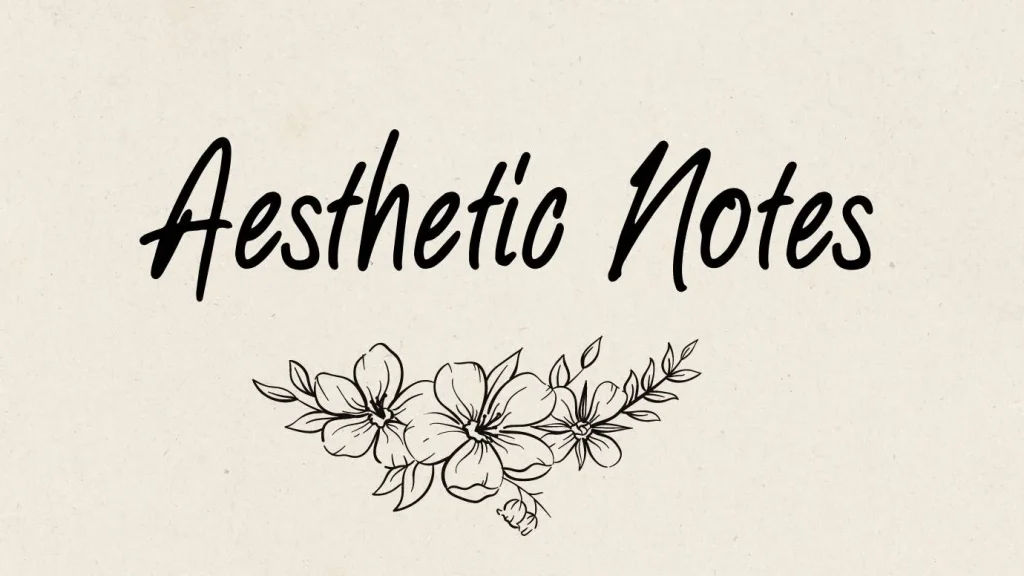
If you are looking for a font with lots of traits, this lettering style will be a flawless choice. To make a design that is both exclusive and
Letterhead Studio created this amazing script design the font is beautifully designed and has an attractive appearance it also displays flexibly formed letters due to their strong curves. Aesthetic Notes Font is popular among designers because of its realistic appearance.
If you are looking for a font with lots of traits, this lettering style will be a flawless choice. To make a design that is both exclusive and attention-grabbing, you can pair this font with any other typeface.
Adobe Photoshop and Canva are two popular designing software packages that allow you to utilize this font for movie logos, drama logos, and logos for websites. This stunning font is often used by graphic designers for generating alternate brush designs.
Glyphs and Characters of Aesthetic Notes Font
This typeface contains unique glyphs and characters the design may be an incredible choice for any task that needs a touch of class. Get it and include a stylish touch to the next task basically, it is an animated movie that is popular among children.
Your simple designs will look bold and stylish with this style. It's ideal for giving your work uniqueness as well as making it differentiate itself from other typefaces. Due to its eye-catching design, this typeface is commonly used in a lot of stylish projects.
Combination of Aesthetic Notes Font With Others
Also appropriate for artwork and banner design. There are smaller capital letters in it. Using this typeface in combination with many other typefaces can truly assist you to produce an original and eye-catching style. you can get a new texture typeface after making a pair it with another unique typeface like lucida sans font.
Aesthetic Notes Font Preview
Who Created the Aesthetic Notes Font?
This font was created by Hendry Juanda. Additionally, in order to provide a warm and simple-to-read design to the content try this typeface.
How Do You Use Aesthetic Notes Font?
This is a script font that was designed from the start to be comprehensible and accessible for writing. It is overly used in many Microsoft Windows software. The typeface is available in several sizes.